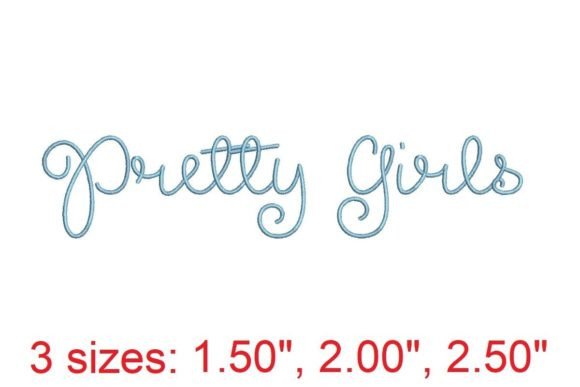
Pretty Girls Embroidery Font
Enhance your embroidery creations with the captivating “Pretty Girls” font. Skillfully designed to infuse elegance and charm, this font is the ideal choice for adding a touch of beauty. Whether embellishing textiles, garments, or crafting personalized gifts, “Pretty Girls” imparts a sophisticated allure. Elevate your creativity as you stitch intricate and graceful designs, turning ordinary pieces into extraordinary works of embroidery art. Transform your projects with the enchanting “Pretty Girls” font today!